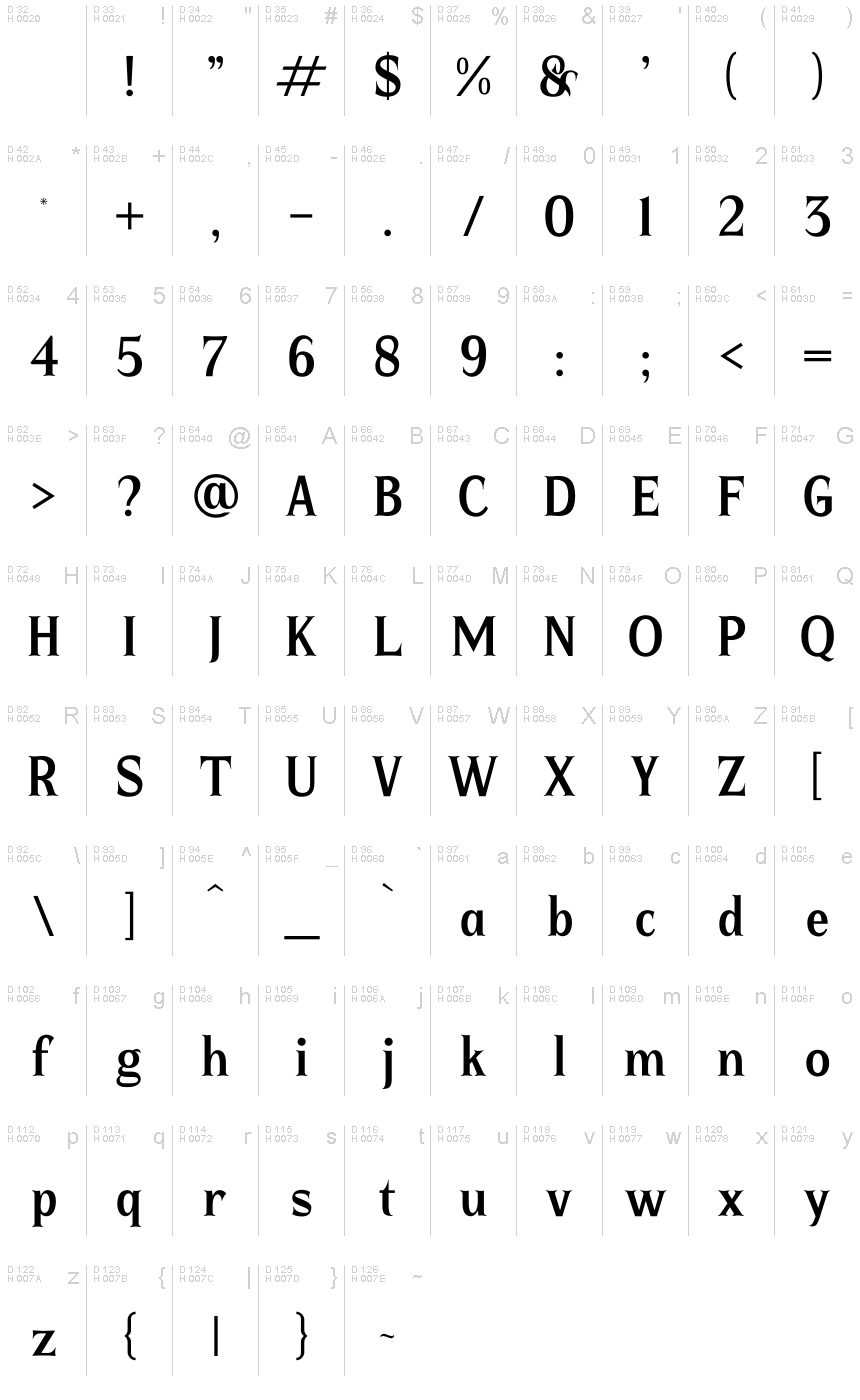
Braders
Braders, a captivating serif font created by Storytype Studio, exudes a timeless elegance with its refined, yet approachable character. The harmonious balance of clean lines and subtle curves lends an air of sophistication, making it a versatile choice for a wide range of design applications. Braders' distinctive ligatures and thoughtful kerning contribute to a remarkably polished and cohesive appearance, elevating any typographic composition.
This font's versatility shines through, making it a compelling option for editorial projects, branding initiatives, and high-end packaging. Braders' classic sensibilities complement both modern and traditional design aesthetics, allowing it to seamlessly integrate into a variety of creative endeavors. Its refined elegance and exceptional readability make it a standout choice for projects that require a touch of timeless sophistication.